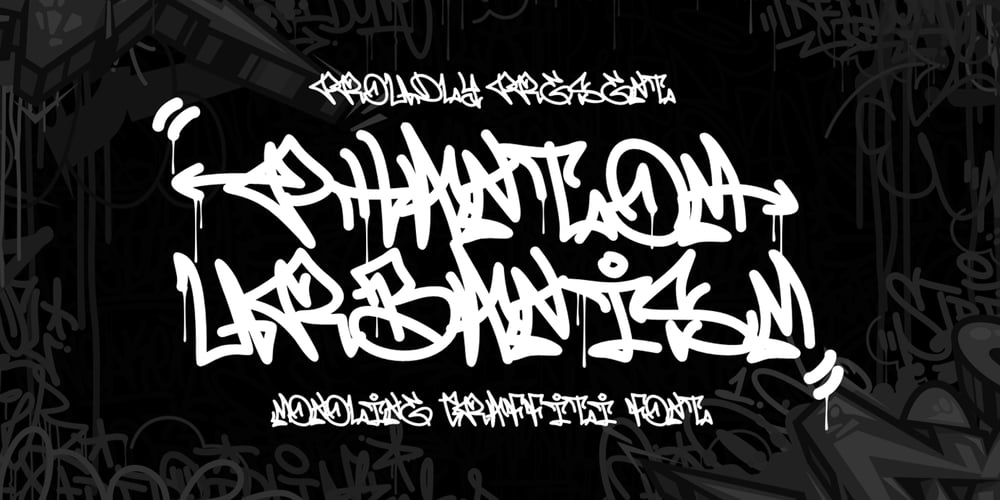
Phantom Urbanism Graffiti Font Family was designed by Sipanji and published by Sipanji21. Phantom Urbanism Graffiti contains 1 styles and family package options. “Phantom Urbanism” is a monoline font with a monoline graffiti theme and an option with stylistic set with arrow effect to add depth and decoration to the font. It is perfect for a wide range of urban or street-themed design projects, such as streetwear design, logo design, car/motosport decals, skateboard decals, and other similar designs. With its edgy and bold appearance, “Phantom Urbanism” brings a sense of energy and attitude to your designs. The font’s monoline style and arrow effect optional to adds visual interest and makes your designs stand out. Whether you’re looking to create a strong and impactful design or add a touch of urban style to your projects, “Phantom Urbanism” is the font for you.